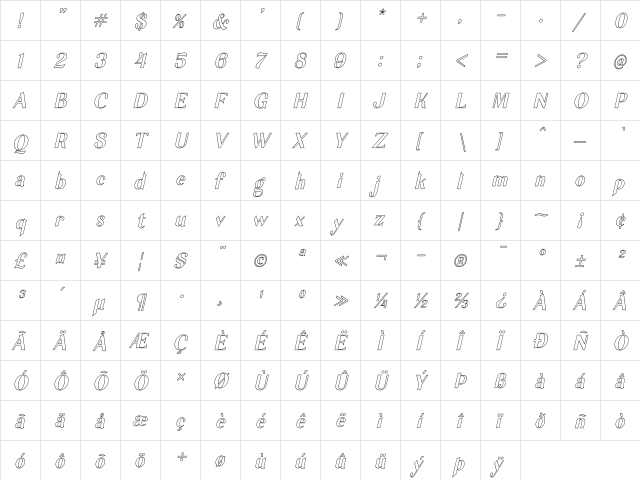
Garlic Outline Italic
Design Context for Garlic Outline Typeface
Garlic Outline is built around its visual character rather than neutral utility — its distinctive forms are designed to make an impression at display sizes. Its italic angle brings a sense of urgency and motion to the letterforms.
Font Pairing: Pair with a clean neutral sans-serif for body copy to let Garlic Outline's character lead without overwhelming the composition.
Pro Tip: Use Garlic Outline exclusively at display sizes — it was designed to be seen, not read at length. Let a neutral companion handle body copy.